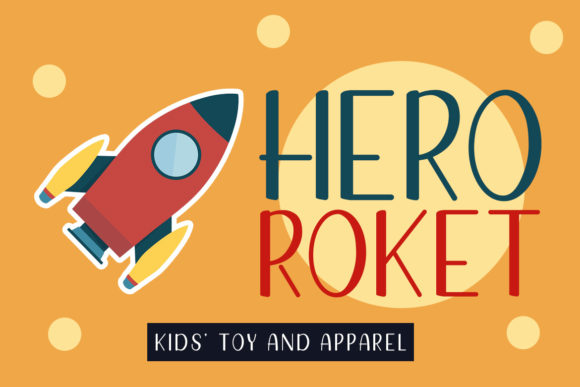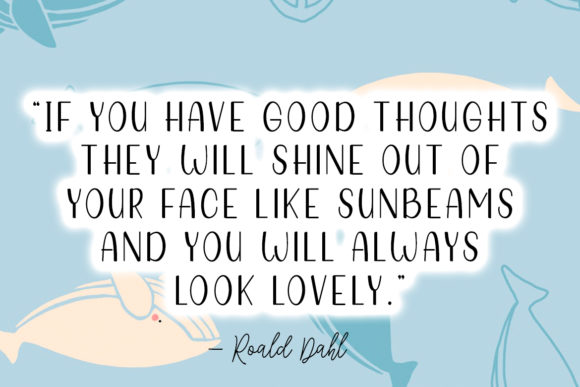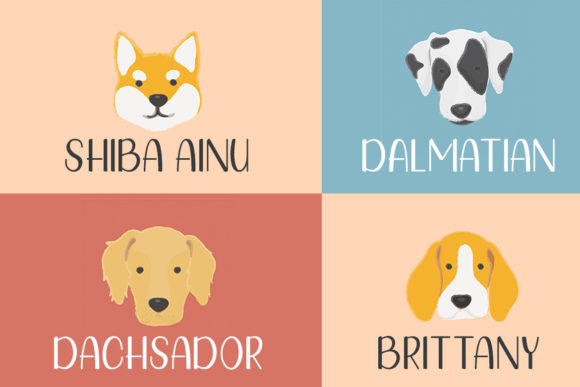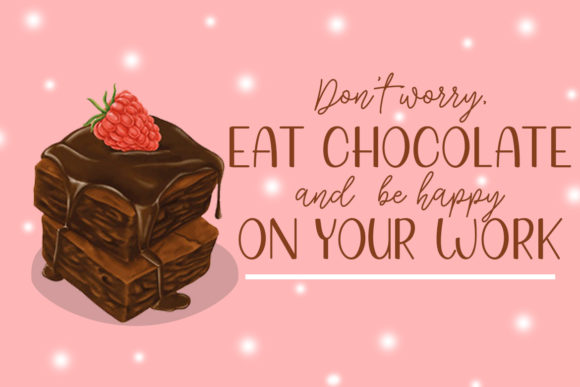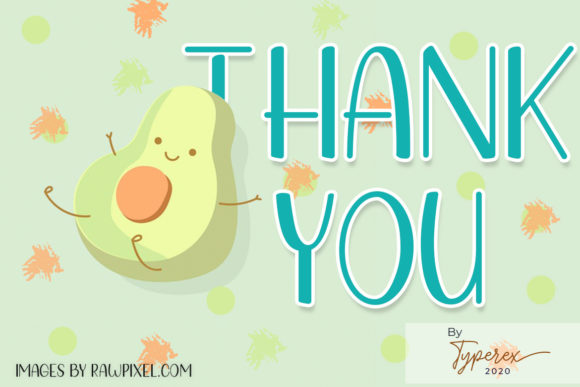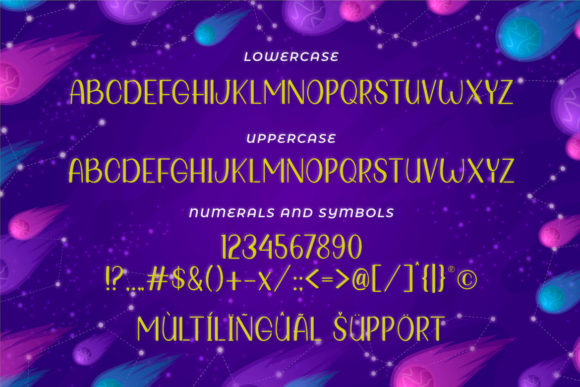
Unleashing Your Inner Creativity with Galaxy Funsans Font
Remember the feeling of excitement you get when you’re brainstorming a new project, and the ideas just start flowing? That’s exactly what happened to us when we stumbled upon the Galaxy Funsans Font. Its playful, whimsical vibe is like a breath of fresh air, and we just can’t get enough of it!
Galaxy Funsans Font is a cheerful display font that’s designed to take your crafting projects to new heights. Whether you’re working on branding, headings, wedding designs, or invitations, this font is sure to elevate your creations and make them truly special. As a designer, you know how important it is to have the right tools at your disposal, and the Galaxy Funsans Font is definitely one to add to your arsenal.
Galaxy Funsans Font Key Features
- Font Family: Galaxy Funsans is a sans-serif font family designed for digital use.
- Unique Characteristics: Galaxy Funsans features a unique blend of modern and futuristic design elements, making it ideal for sci-fi and technology-related projects.
- Font Weight and Style: Galaxy Funsans comes in a range of font weights, from light to bold, and includes various styles, including regular, italic, and bold italic.
Galaxy Funsans Font Review
Overall, I’d say Galaxy Funsans Font is a decent addition to any designer’s toolkit. Here are some things that work well:
- ✨ Unique and quirky design: This font is perfect for those who want to add some personality to their designs. Its whimsical feel can elevate any project from boring to fascinating.
- ✨ Wide range of language support: With coverage for over 200 languages, this font is an excellent choice for multilingual projects.
- ⚠️ Limited font weights: Galaxy Funsans Font only comes in a few font weights, which can limit its versatility in certain situations.
- ⚠️ Not ideal for small text: The font’s unique design can make it difficult to read in smaller text sizes, so it’s best used for headings and titles.
Overall, I’d give Galaxy Funsans Font 3.5 out of 5 stars. While it has some limitations, its unique design and wide language support make it a great choice for designers who want to add some flair to their projects. Just be mindful of its limitations, and you’ll be able to get the most out of this font.
Galaxy Funsans Font is perfect for creating eye-catching titles and headings in your designs. It’s also great for adding a touch of whimsy to your text. Try pairing it with bold fonts for a striking contrast. Some common use cases include:
- Creating Instagram captions and social media posts
- Designing posters and flyers
- Adding a unique touch to presentations and reports
Alternatives to Galaxy Funsans Font
Pacifico is a beautiful, cursive font perfect for creating a luxurious and elegant look. It’s ideal for use in branding, packaging, and advertising where you want to convey a sense of sophistication and refinement. Pacifico has a similar feel to Galaxy Funsans Font, but with a more refined and polished appearance.
Playfair Display is an elegant, high-end font that’s perfect for creating a sense of luxury and sophistication. It’s ideal for use in branding, advertising, and editorial design where you want to convey a sense of high-end quality. While Playfair Display is more formal than Galaxy Funsans Font, it shares a similar sense of elegance and refinement.
Great Vibes is a modern, cursive font that’s perfect for creating a fun and energetic look. It’s ideal for use in branding, advertising, and packaging where you want to convey a sense of playfulness and creativity. Great Vibes has a similar feel to Galaxy Funsans Font, but with a more modern and dynamic appearance.
Q: What is the recommended font size and line height for the Galaxy Funsans Font?
The recommended font size for the Galaxy Funsans Font is between 12pt and 24pt, depending on the intended use and audience. A line height of 1.2 to 1.5 times the font size is recommended to ensure optimal readability and visual balance.